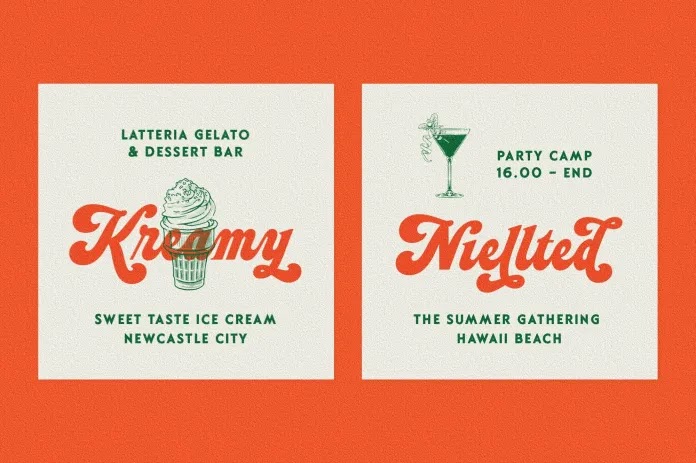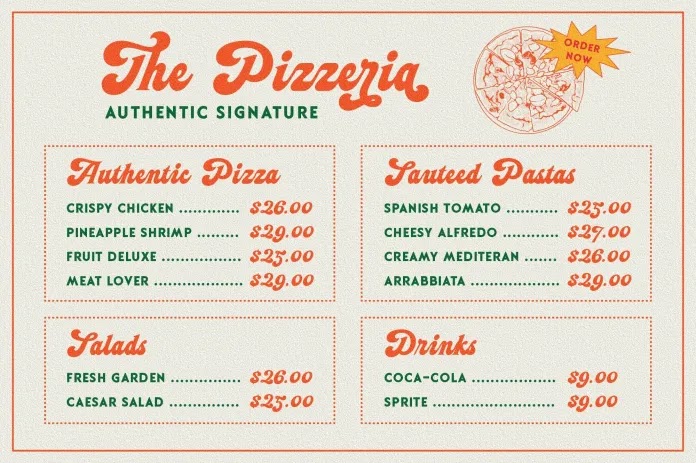
This is script handwritten typeface with good decorative style and vintage touch. These collections contain bold script and sans serif font. This script font includes some alternates and ligatures. The Hittedal matches apply in some designs such as the logo, poster, label, badge, packaging, t-shirt, branding, quotes and more custom design.